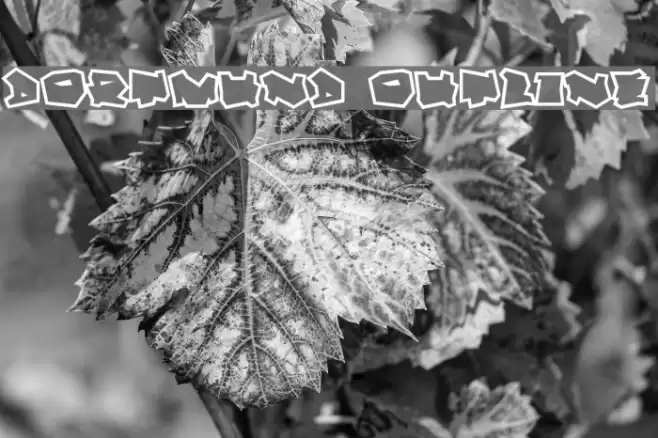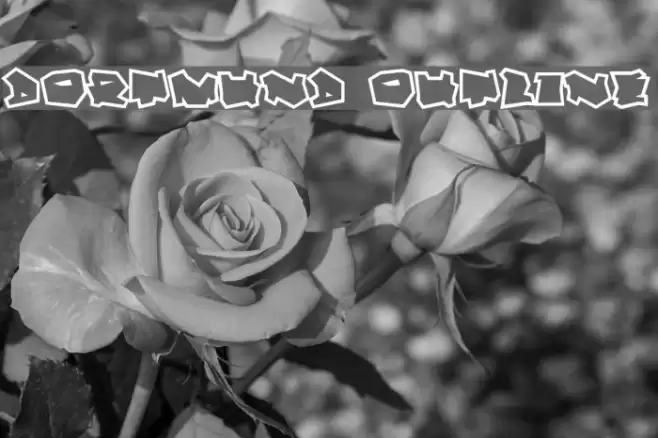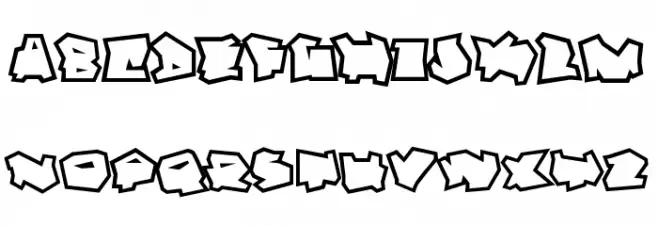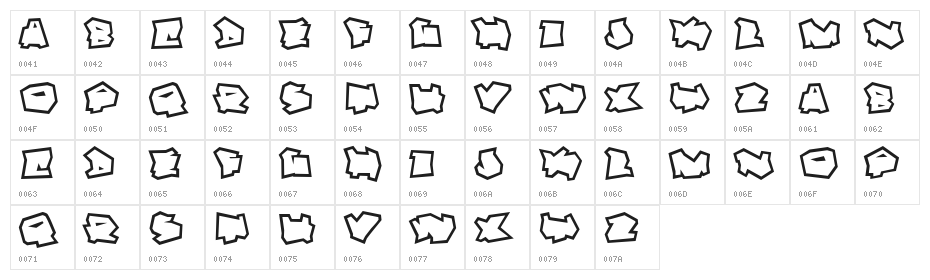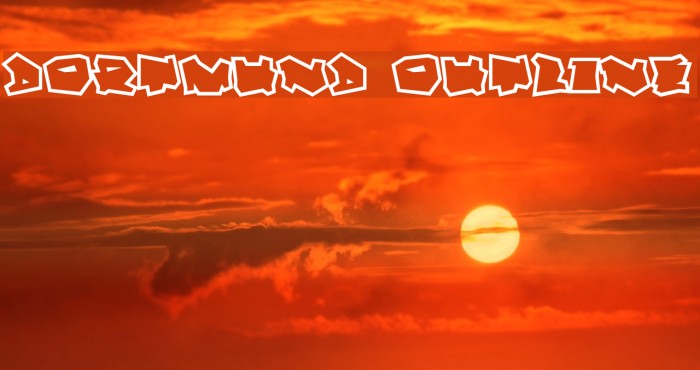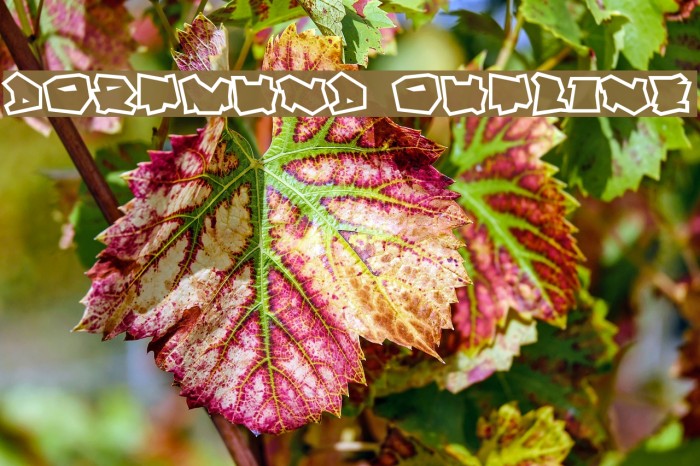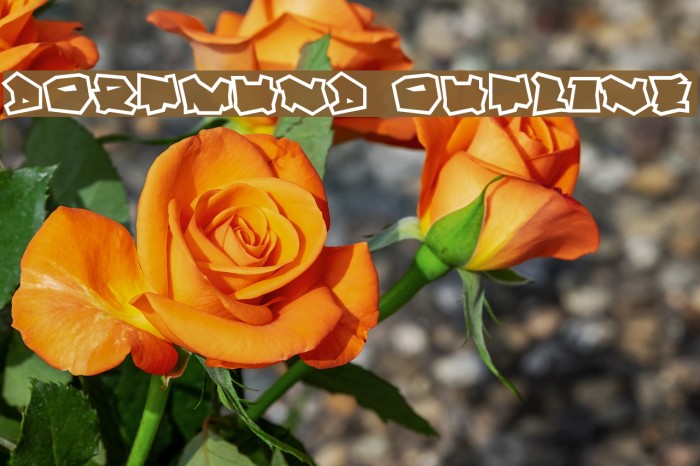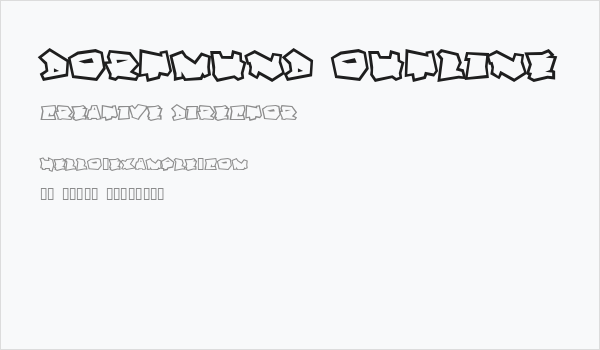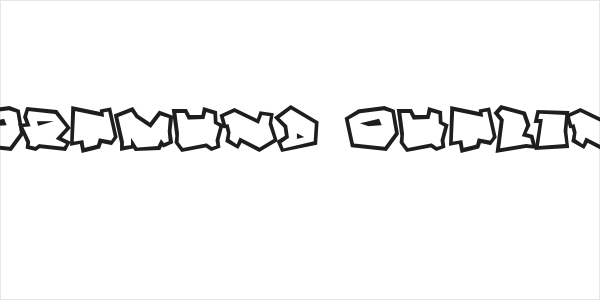
This font features a bold, outlined style with a graffiti-inspired aesthetic. The characters are angular and geometric, giving them a rugged and edgy appearance. The outlines are thick, creating a strong visual impact, while the interior spaces are left open, enhancing the outlined effect. This design is reminiscent of street art, with a playful yet assertive vibe. The uppercase and lowercase letters maintain a consistent style, with sharp angles and irregular shapes that add to the dynamic feel. The numbers and special characters follow the same design principles, ensuring a cohesive look across all elements.
A bold, graffiti-inspired outlined font with angular, geometric characters from Uncategorized fonts.
- Proposed Projects: Ideal for urban-themed designs, streetwear branding, music album covers, and event posters.